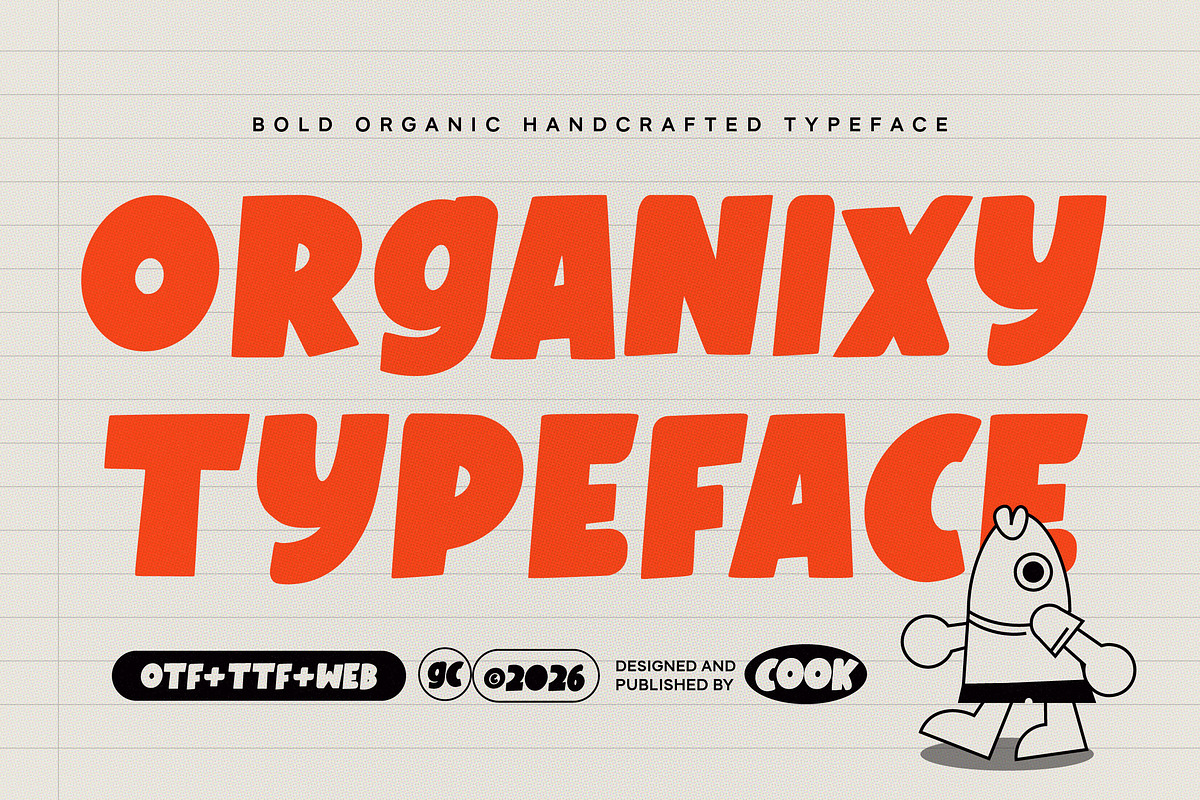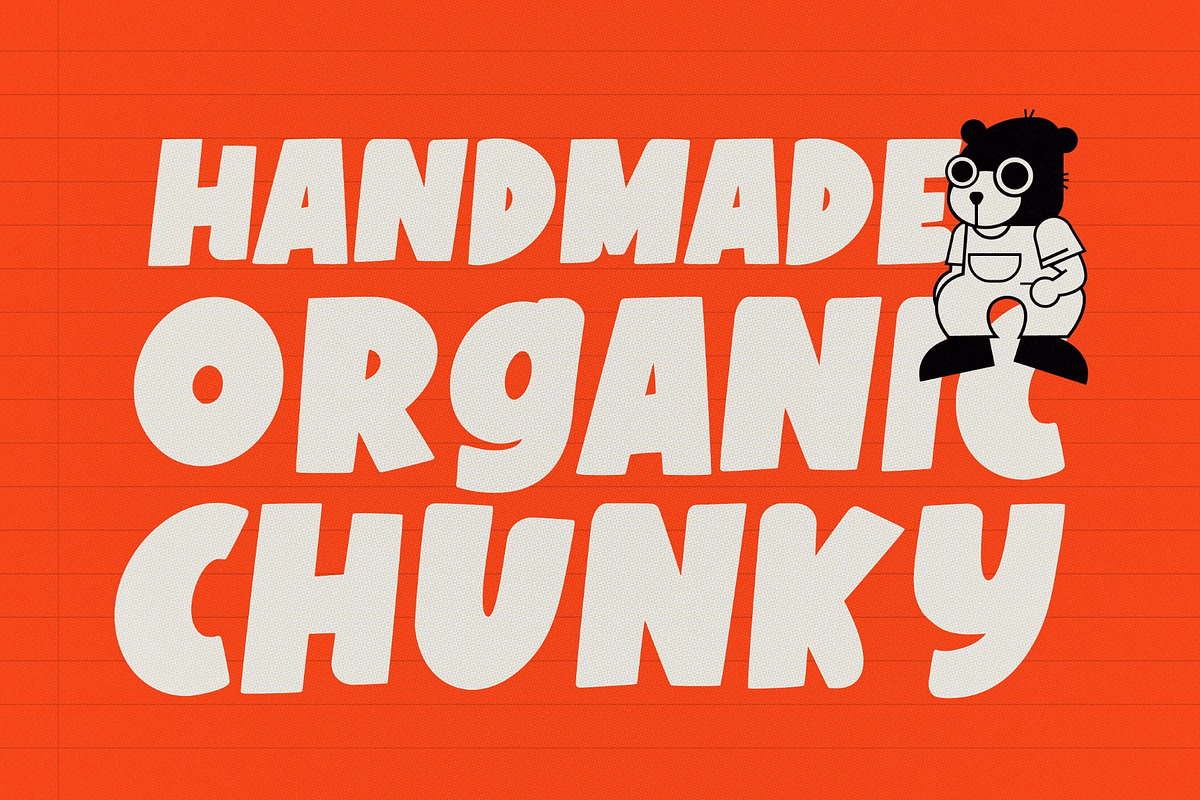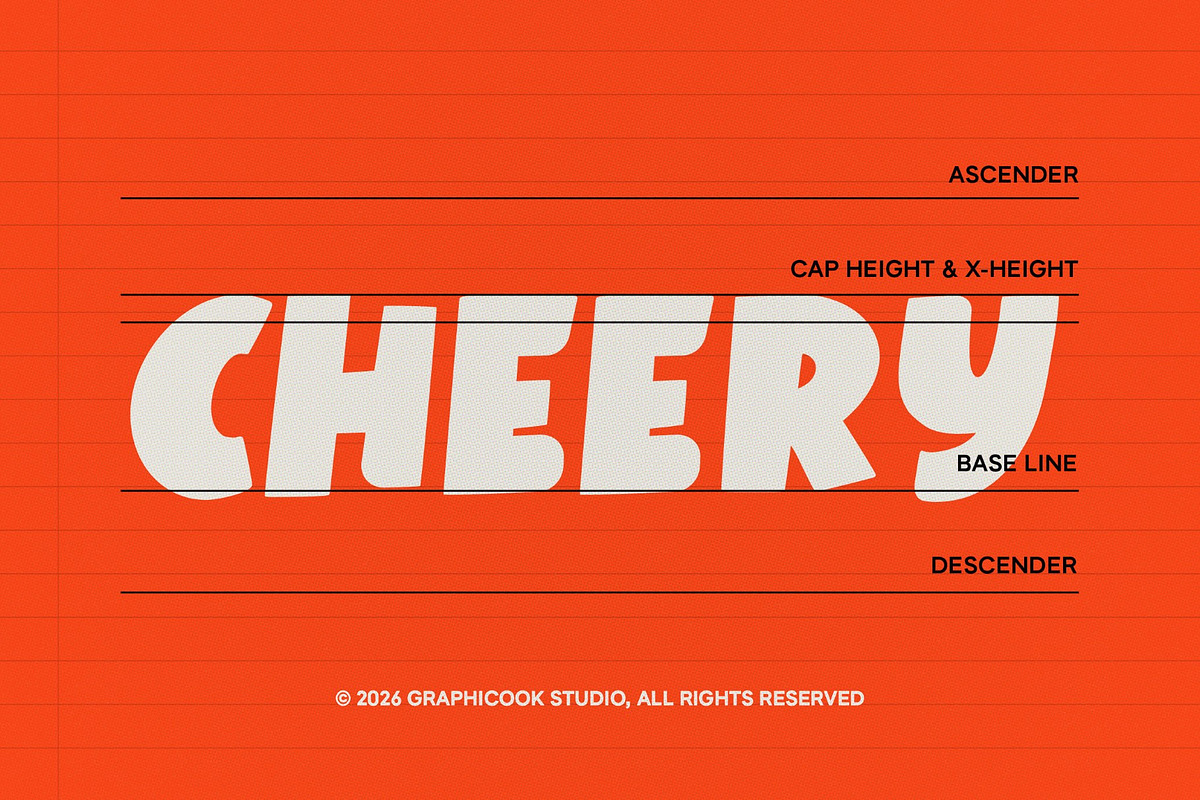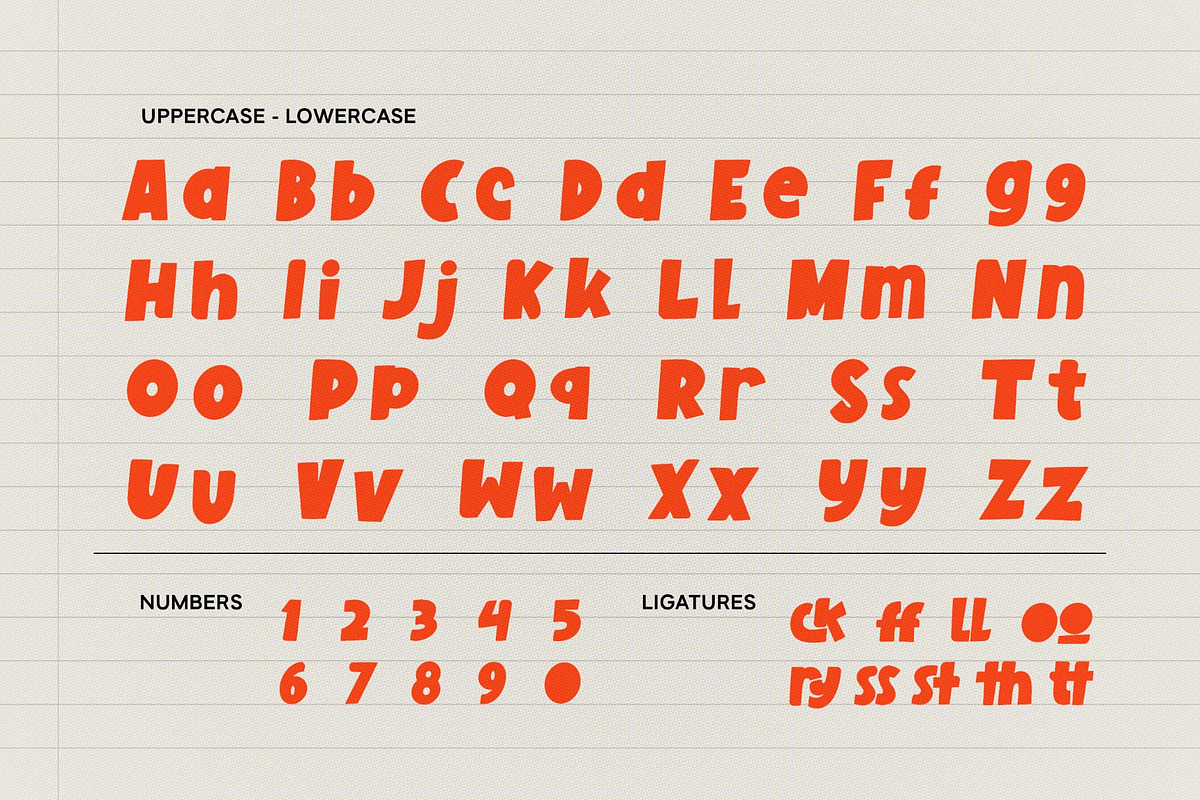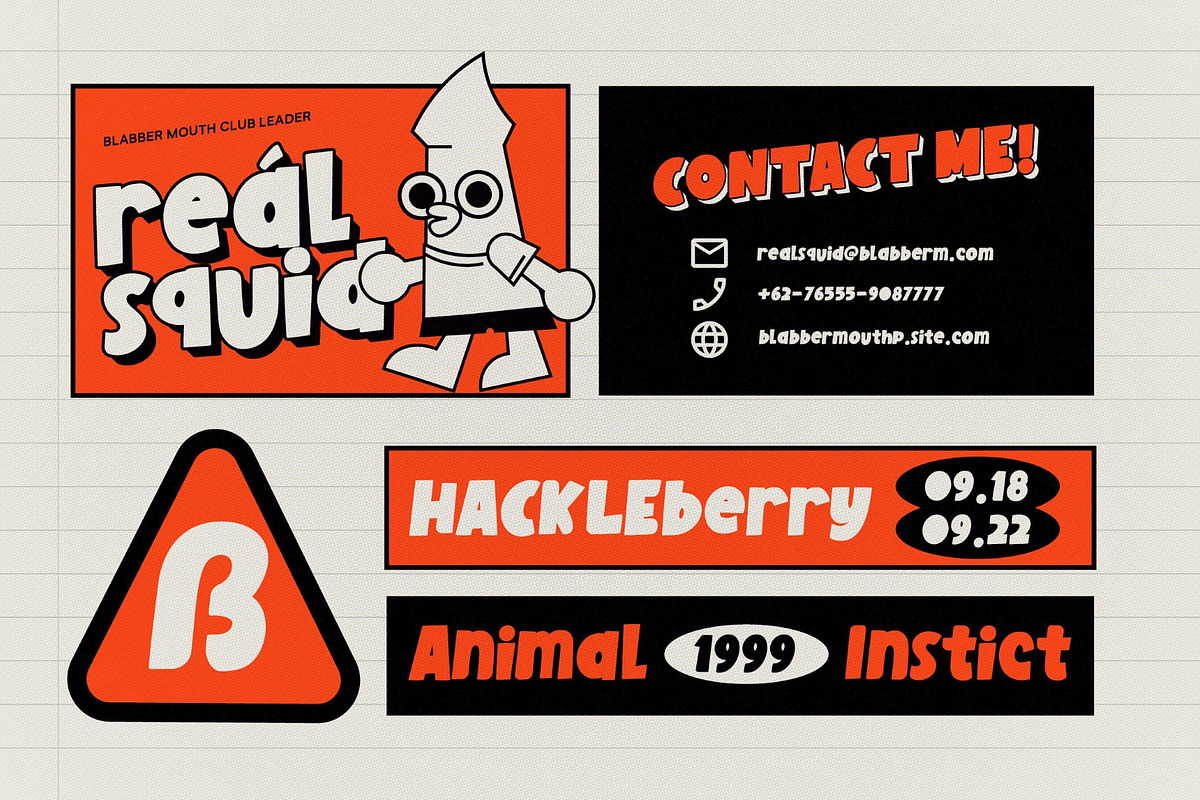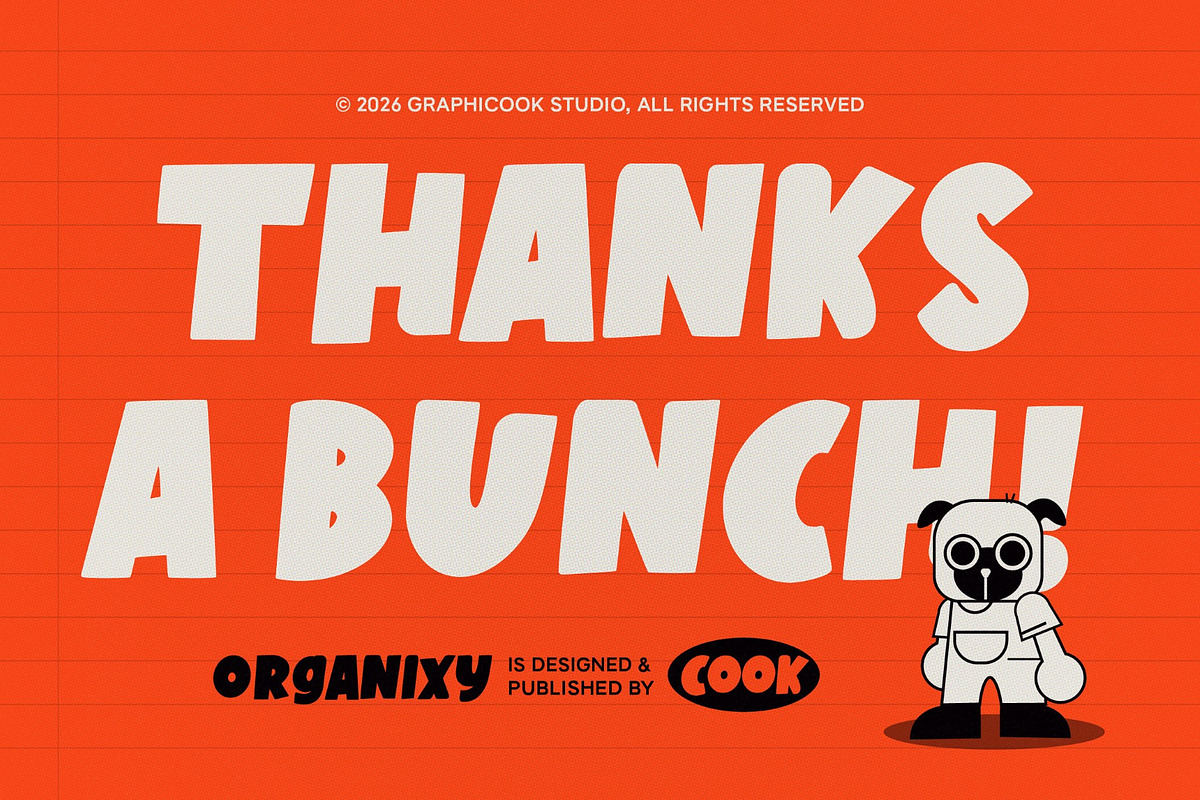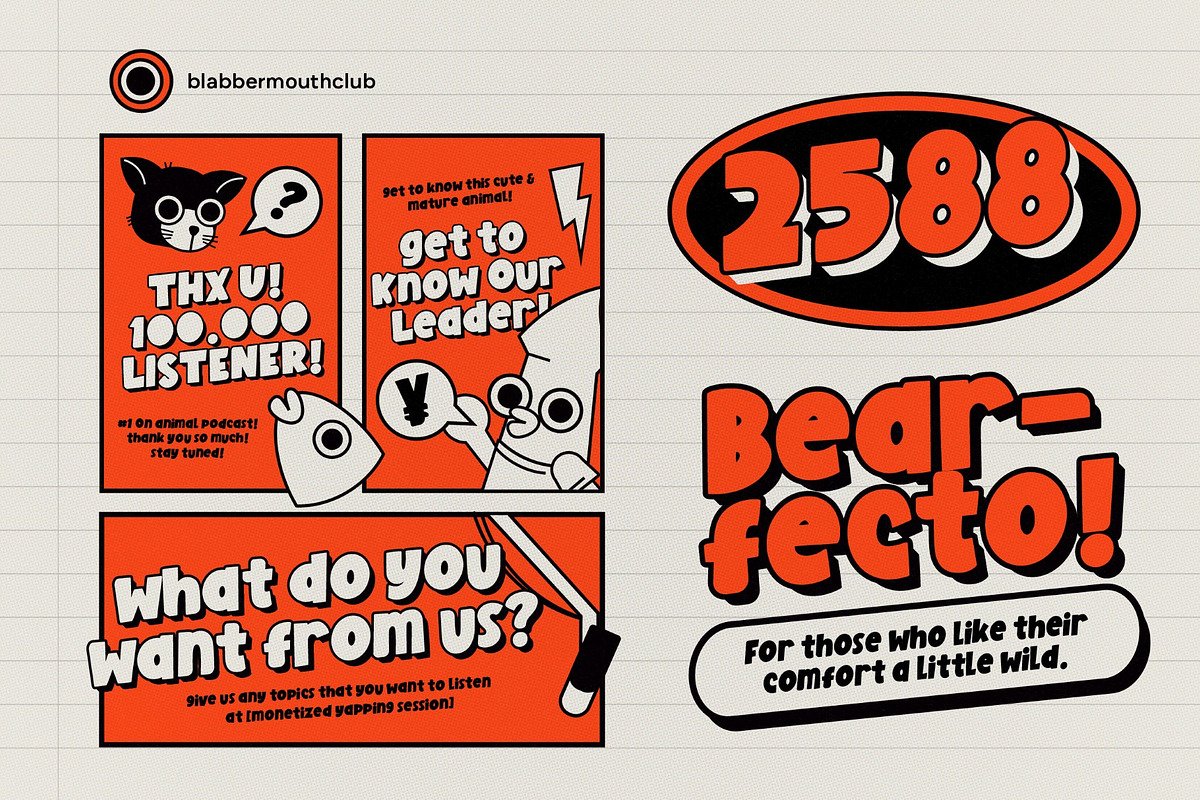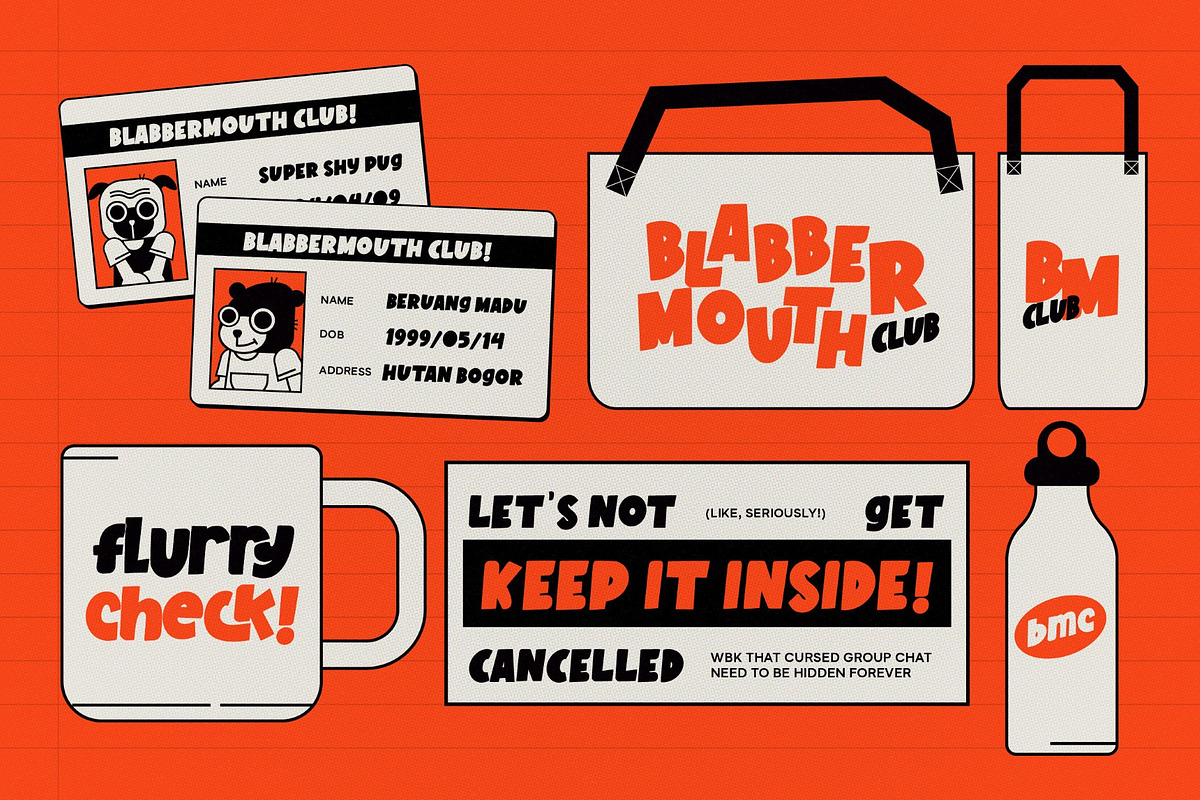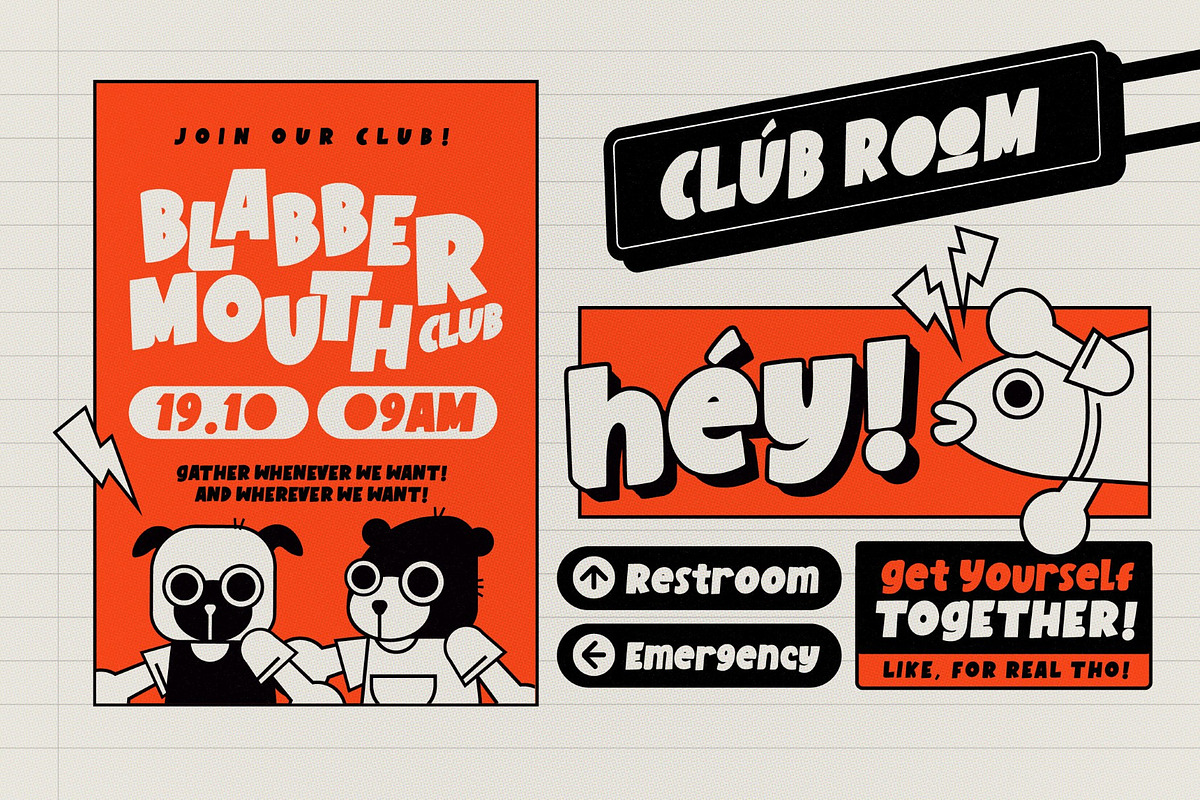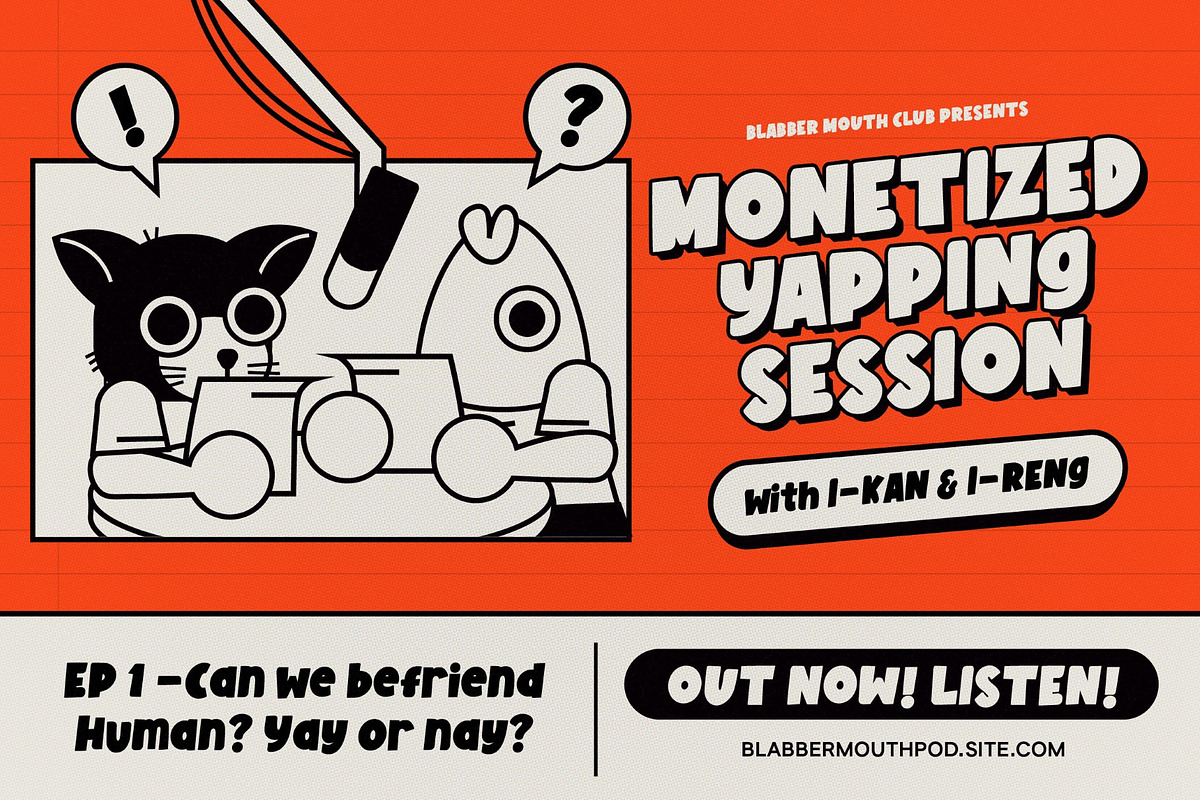
Organixy
Organixy is a bold display font with a unique, expressive personality and organic charm. Its relaxed curves and naturally flowing letterforms create a playful, lively, and modern appearance that instantly captures attention. Perfect for product branding, food and beverage packaging, logos, posters, illustrations, social media content, and children's designs, Organixy brings warmth and character to every creative project.
It is perfect for headlines, logotypes, magazines, packaging, quotes, movies, games, cover albums, book covers, and flyers, it's a perfect solution for creating eye-catching designs that stand out in any context.